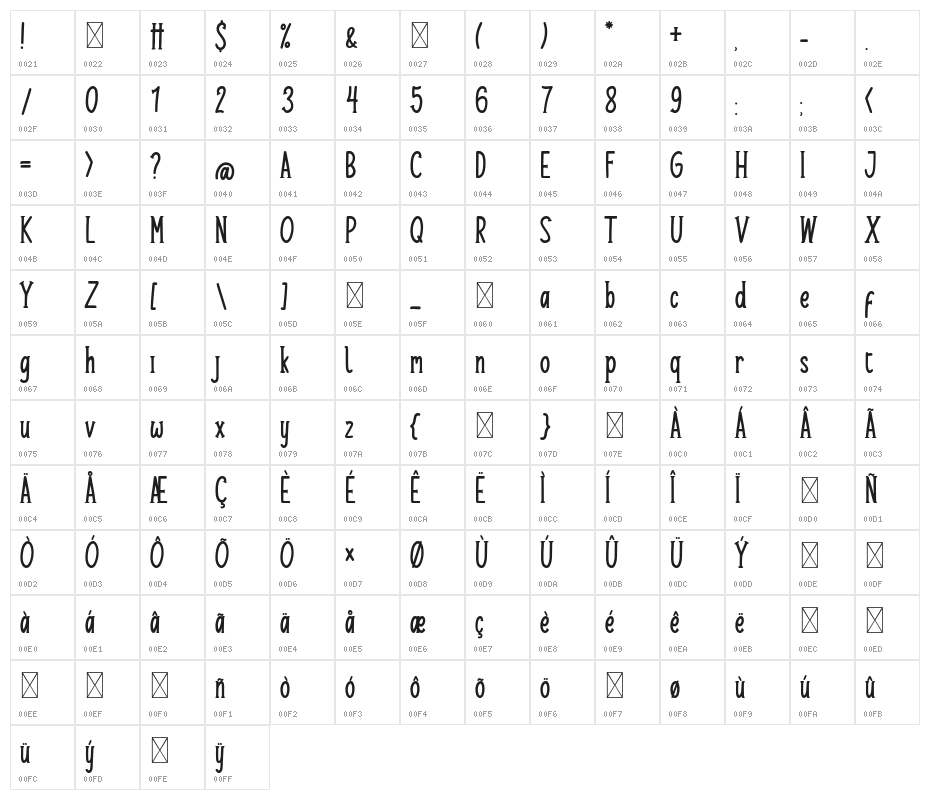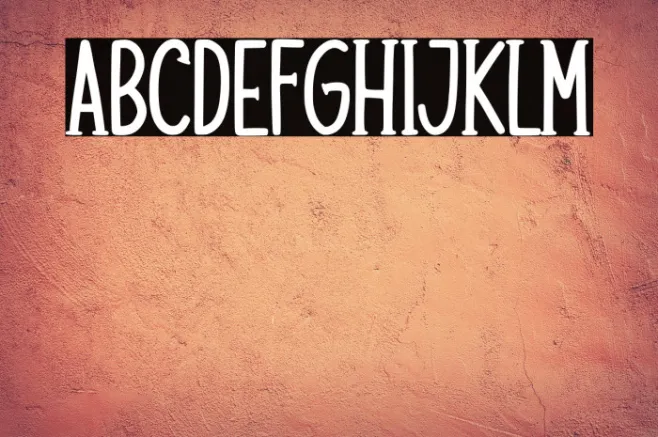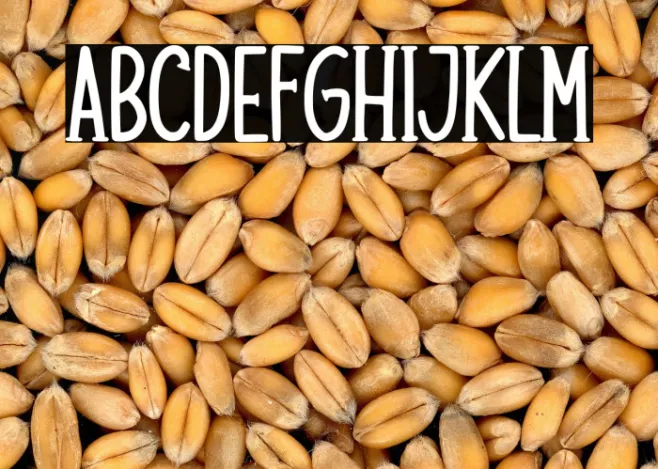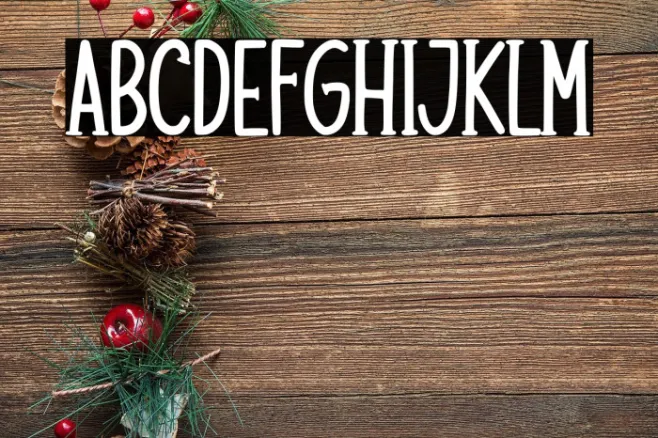
Honeybae Font
Honeybae Description
This font features a playful and whimsical design with a hand-drawn aesthetic. The letters are slightly irregular, adding a charming and informal touch. The uppercase characters are tall and narrow, while the lowercase letters maintain a consistent height, creating a harmonious balance. The numbers are bold and clear, ensuring readability. Special characters are creatively styled, matching the overall playful theme. This font is ideal for projects that require a fun and approachable look, such as children's books, greeting cards, or casual branding.
| Use Case | Headlines, Logos, Casual Text |
| Proposed Projects | Ideal for children's books, greeting cards, casual branding, and playful designs. |